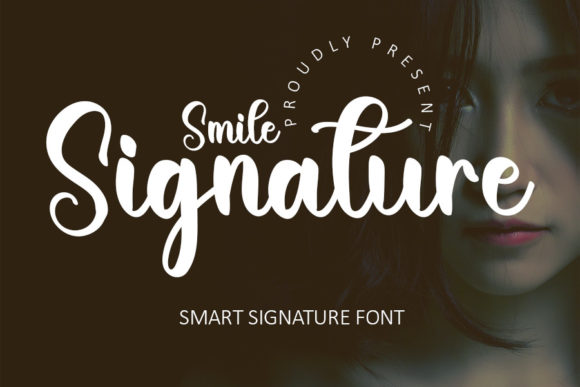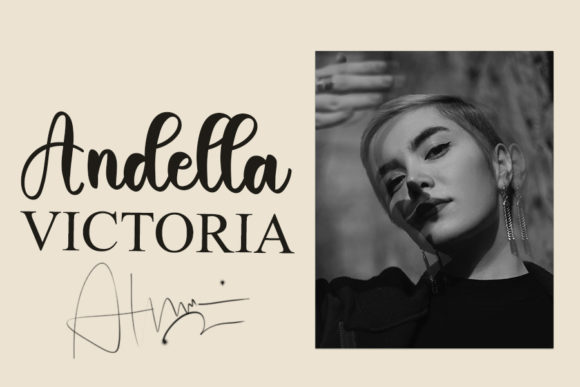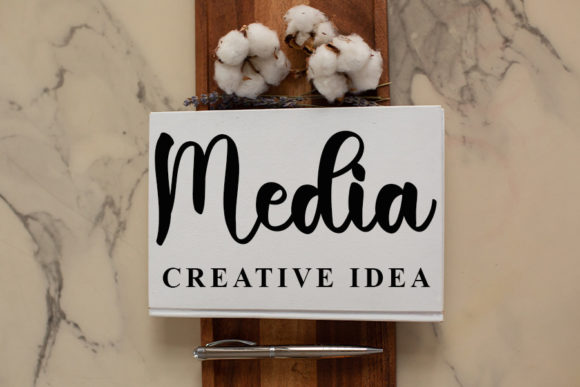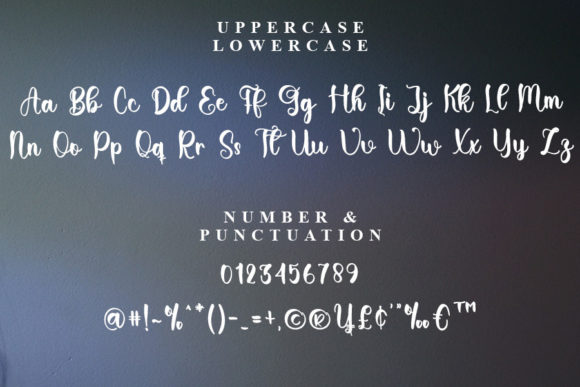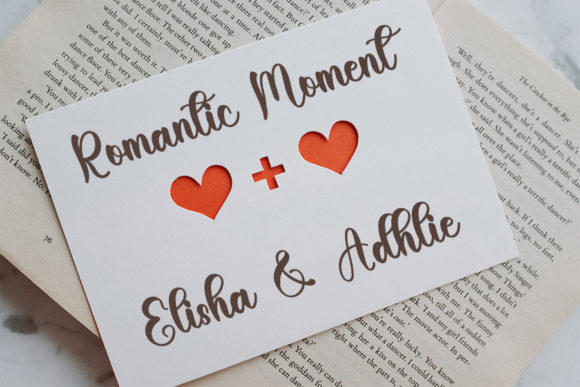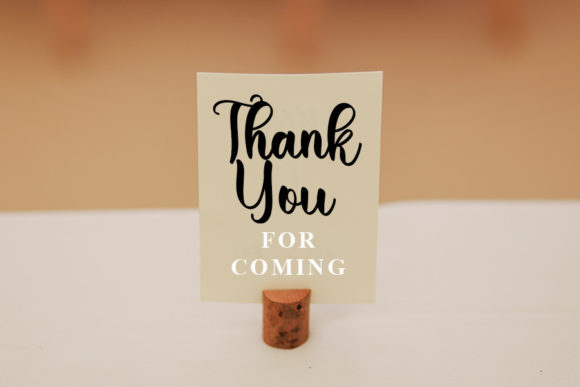
About Smile Signature Font
“Smile Signature” is a font that exudes style through its elegant handwritten design, featuring a contemporary ambiance and impeccable form. Drawing inspiration from the timeless allure of classic calligraphy, this font seamlessly blends modern aesthetics with enduring grace. Notably, “Smile Signature” is PUA encoded, enabling effortless access to all its intricate glyphs and swashes, thereby enhancing the versatility of your design.
The allure of “Smile Signature” lies in its ability to seamlessly unite contemporary design elements with the timeless charm of classic calligraphy. This synthesis results in a font that exudes sophistication, making it an ideal choice for designs that require refinement and a touch of distinctiveness.
Across a spectrum of design projects, “Smile Signature” showcases its versatility. Whether it’s branding, invitations, or other creative endeavors, the font effortlessly adapts to various contexts. Its balanced form adds an air of elegance to logos, allowing brands to convey both sophistication and modernity.
When applied to invitations and stationery, the influence of classic calligraphy emerges, infusing a layer of timeless beauty and emotional depth into your designs. For an array of occasions and events, “Smile Signature” enhances the significance of the message and the sentiment it carries.
The inclusion of PUA encoding amplifies the font’s appeal by providing easy access to a diverse range of glyphs and swashes. This empowers you to personalize and customize your designs seamlessly, ensuring that each project is a unique expression of your creative vision.
In summary, “Smile Signature” is a font that seamlessly marries classic charm with contemporary design sensibilities. Its flawless form and PUA encoding make it a stellar choice for designers seeking to infuse sophistication and versatility into their projects. Whether you’re working on branding, invitations, or other creative endeavors, “Smile Signature” radiates a timeless elegance that elevates the impact of your designs.